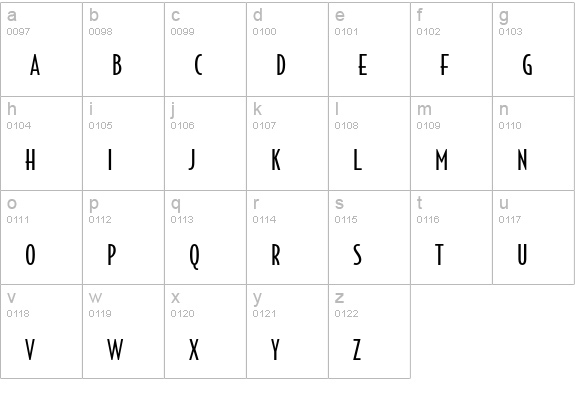
BodegaSans-LightSmallcaps Font Details
BodegaSans-LightSmallcaps is a modern and elegant font that exudes sophistication and professionalism. This sleek typeface features clean lines and subtle curves, making it perfect for a wide range of design projects. The small caps add a touch of uniqueness and flair to any text, making it stand out from the crowd. And the best part? BodegaSans-LightSmallcaps is available for free download at FontsMarket.com! This means you can easily access this stylish font without breaking the bank. Whether you're working on a branding project, creating marketing materials, or designing a website, BodegaSans-LightSmallcaps is sure to elevate your work to the next level. Download it today and add a touch of class to your designs.